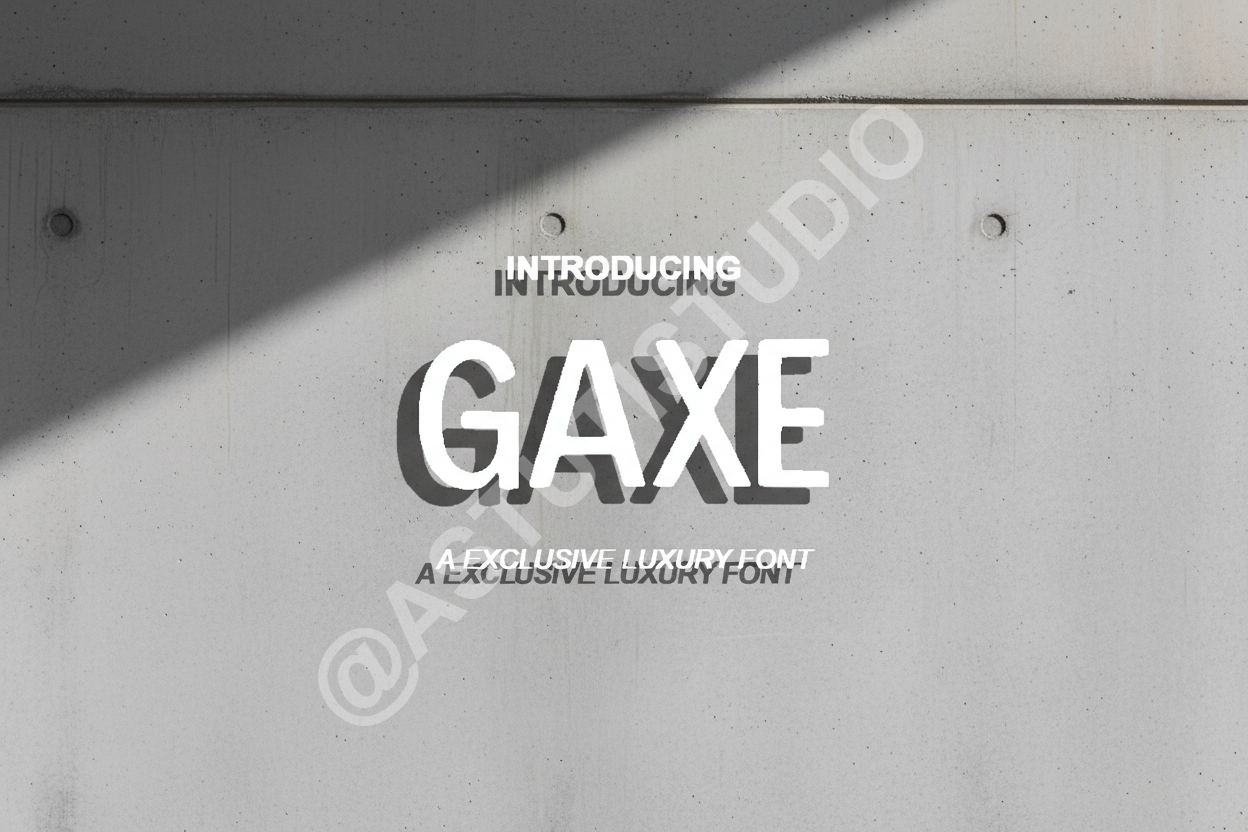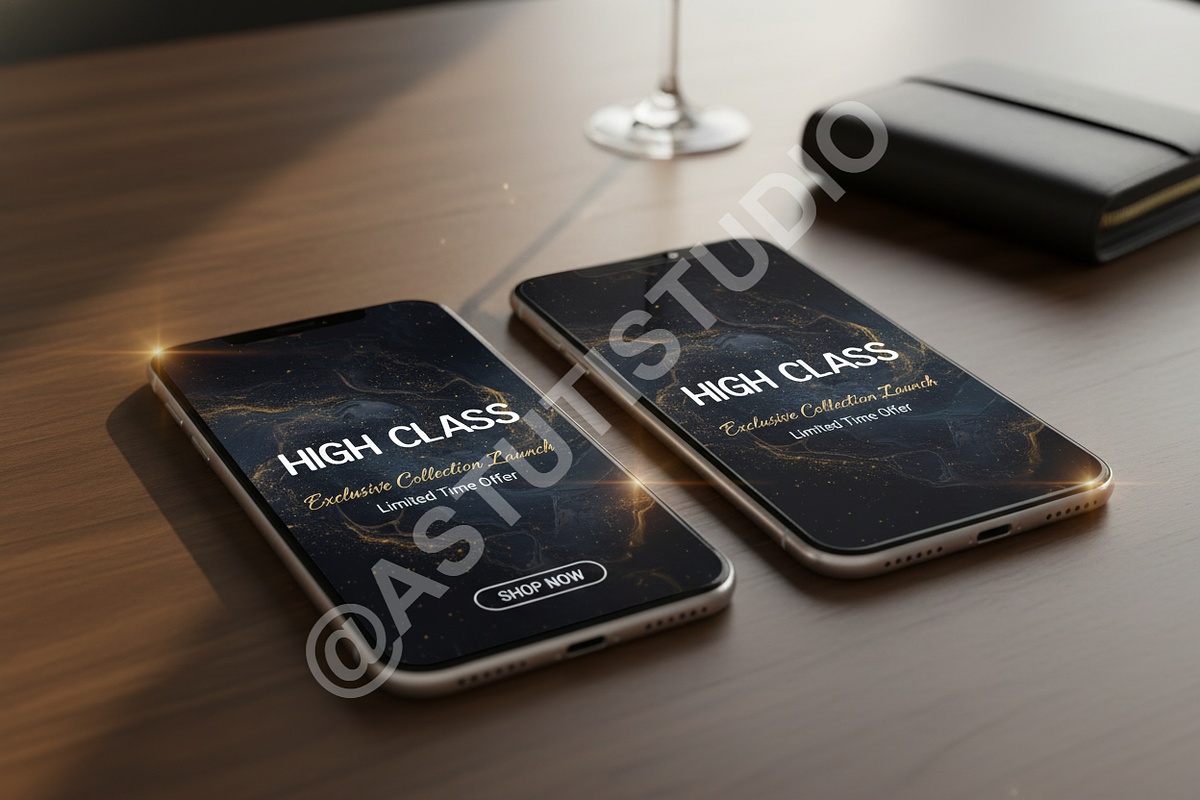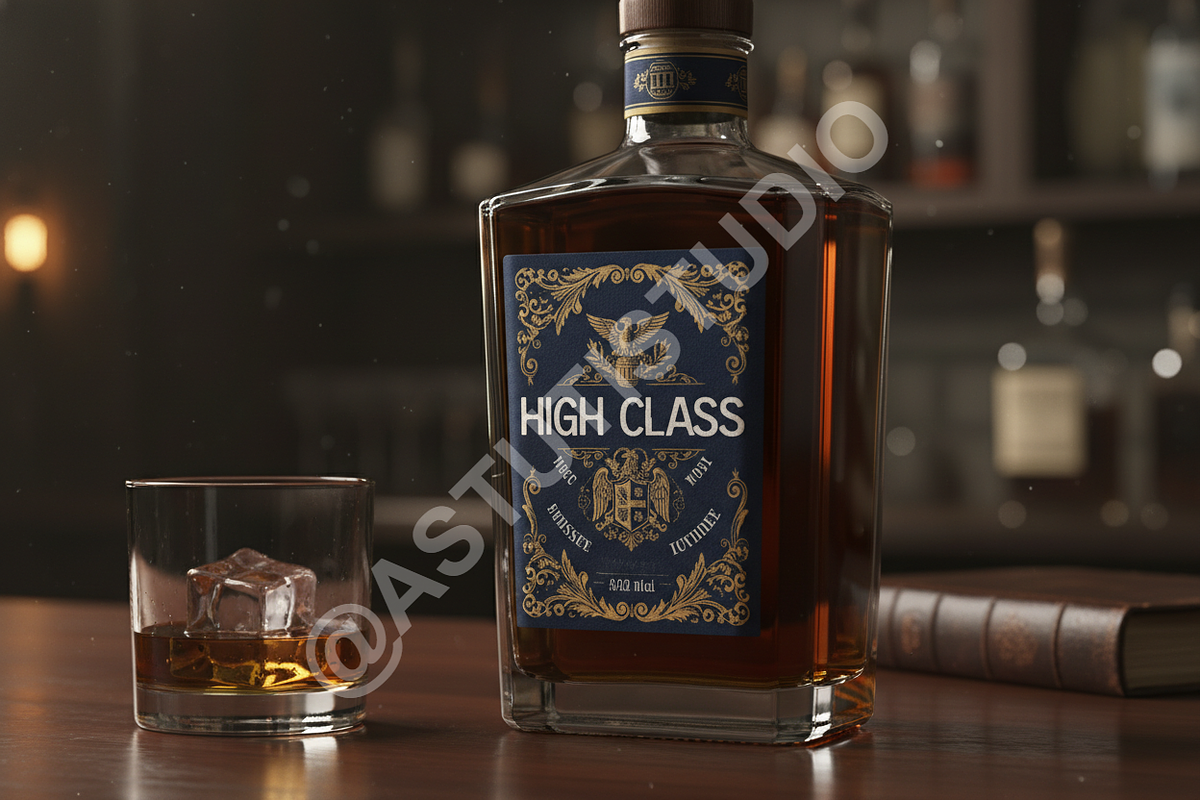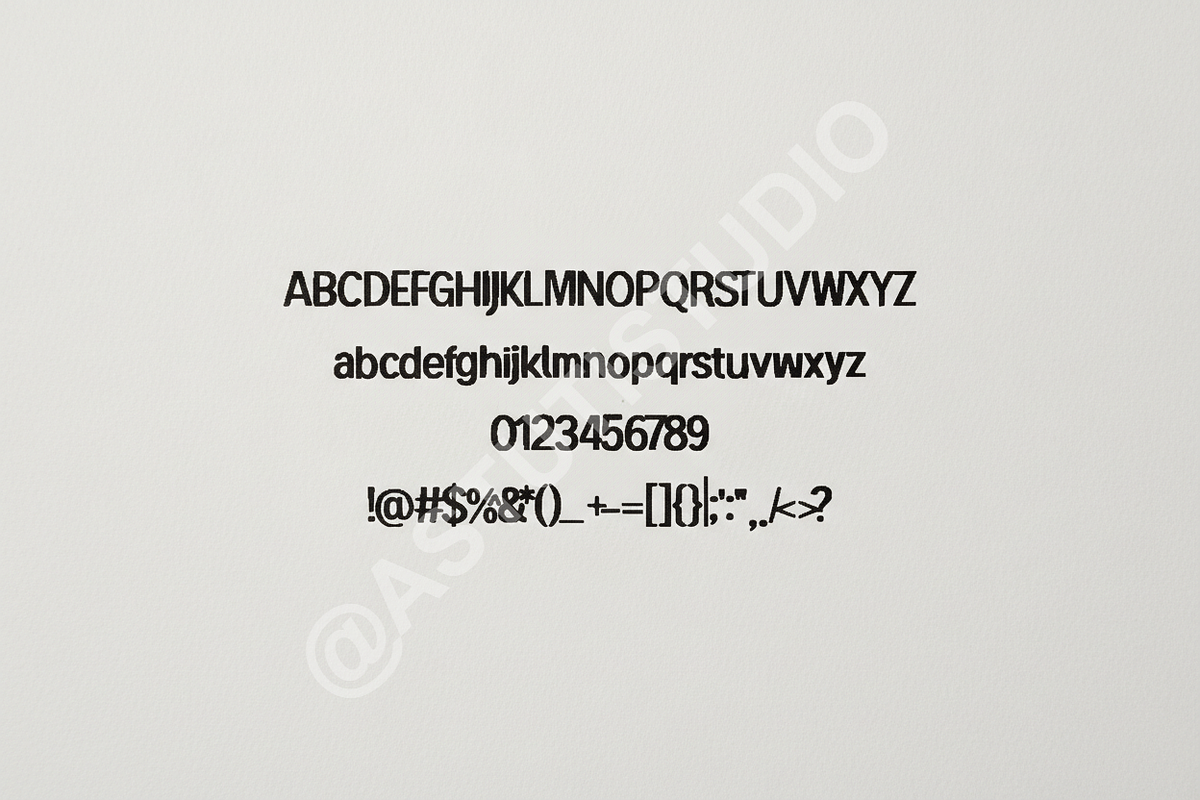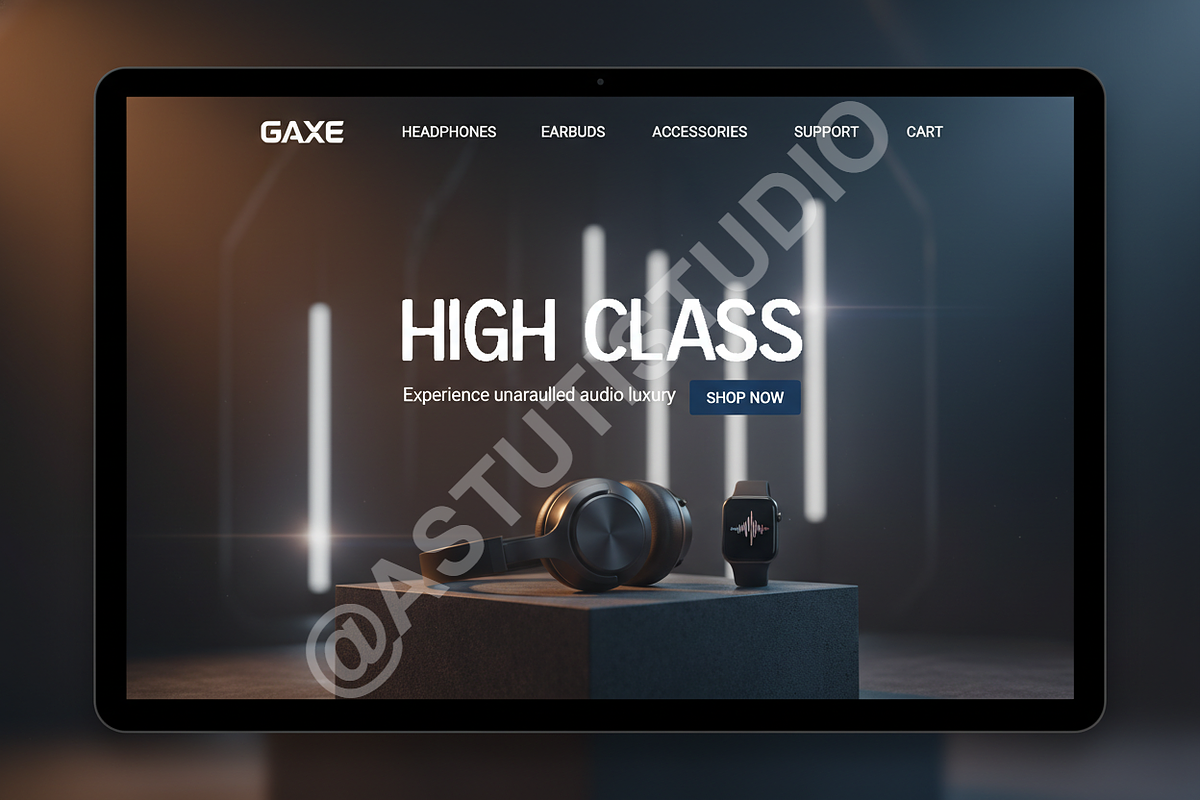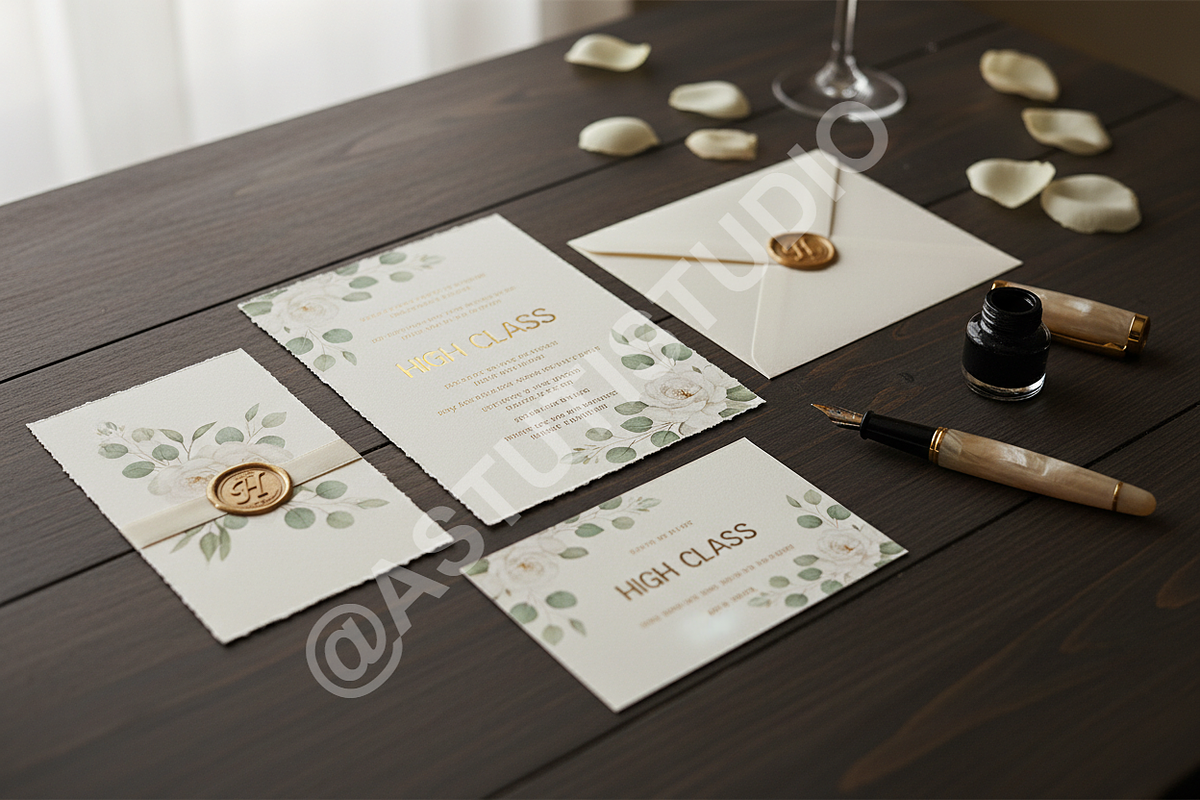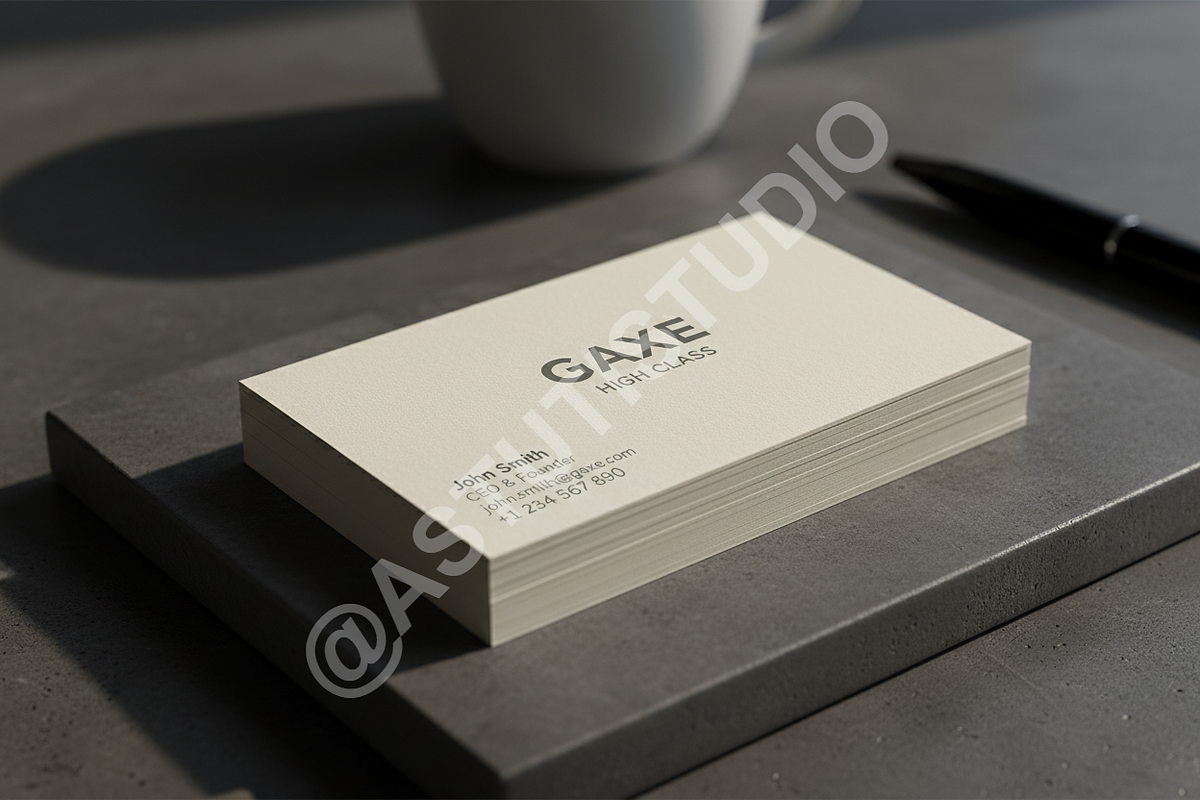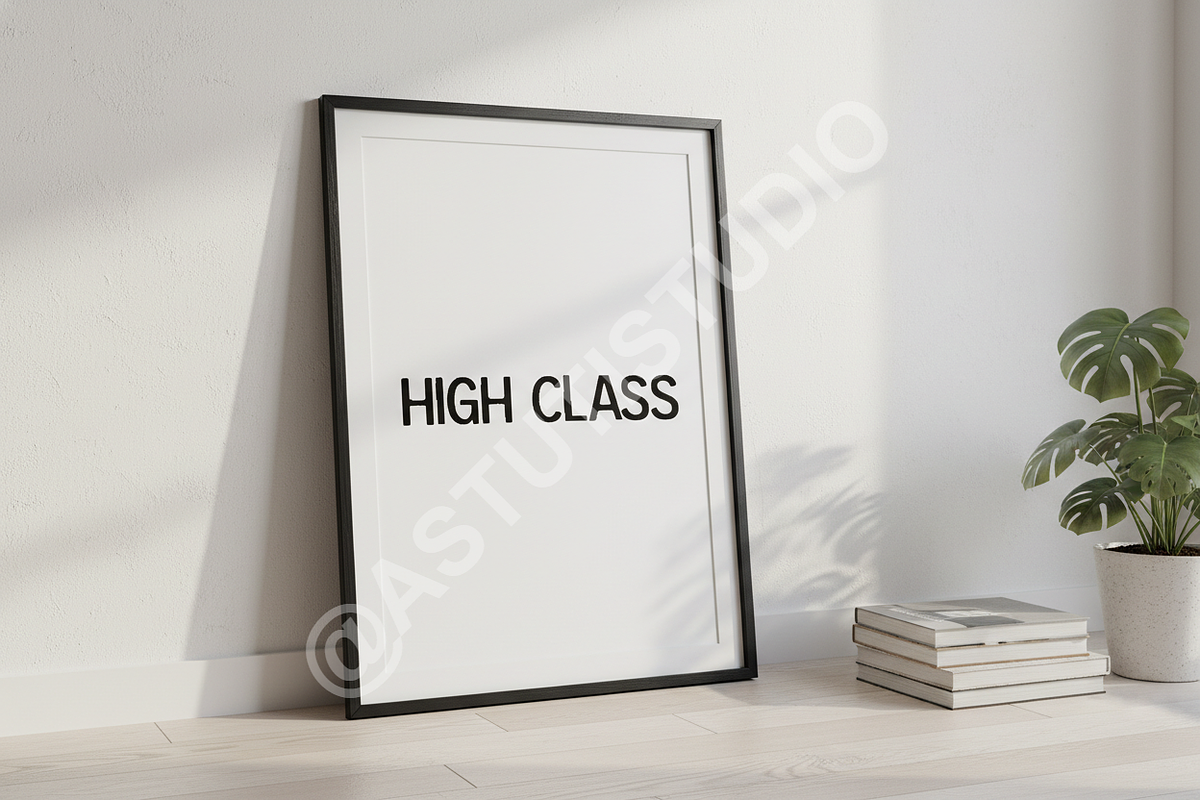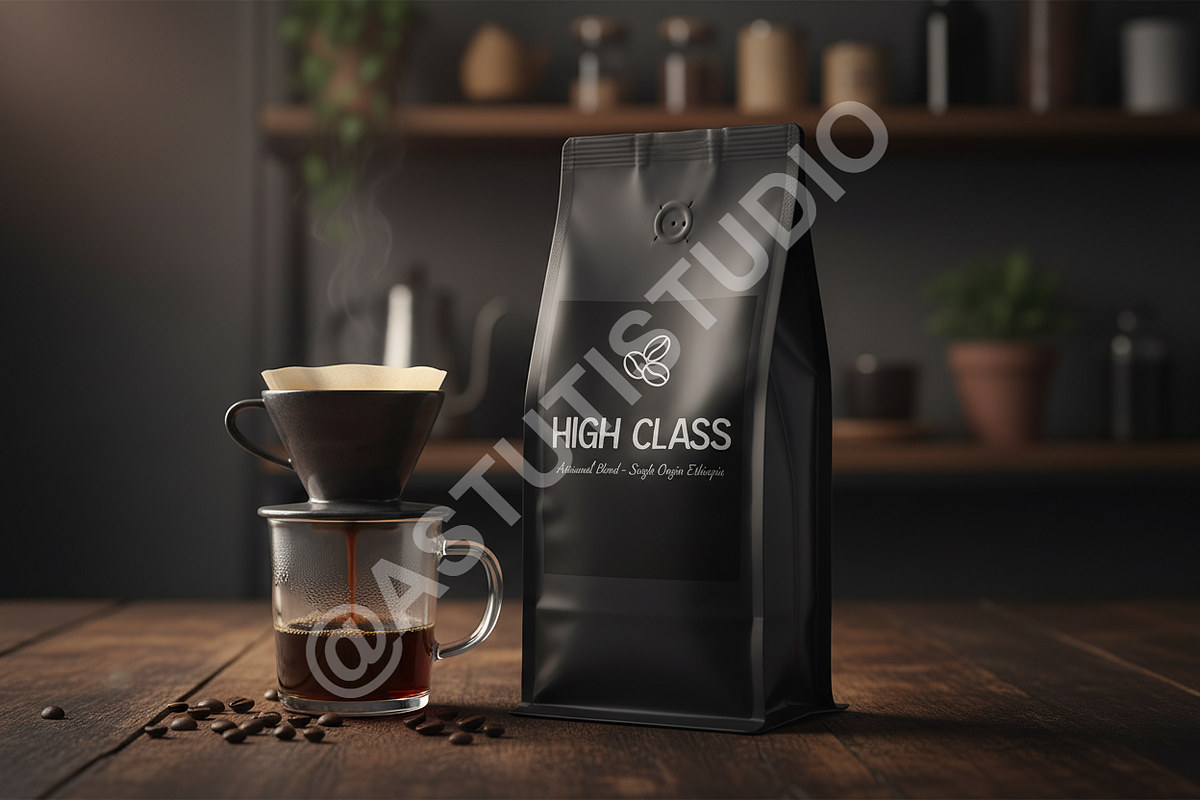
Gaxe - Elegant Modern Serif Typeface
Gaxe is a meticulously crafted modern serif typeface designed for discerning professionals who demand sophistication and clarity. It strikes a perfect balance between timeless elegance and contemporary flair, making it the definitive choice for premium visual communication.
Gaxe effortlessly elevates your projects, whether you are establishing a high-end luxury brand identity, crafting stunning editorial spreads, or creating captivating, polished social media visuals. It is built to communicate quality and exclusivity.
- Versatile Weights: Includes Thin, Regular, Medium, and Bold variations for maximum design flexibility.
- Extensive Language Support: Optimized for multi-lingual European use (Latin Extended A).
- Elegant Ligatures: Over 40 standard and discretionary ligatures to enhance flow and unique typographic moments.
- High Contrast Design: Features smooth, balanced curves and defined stems, ensuring legibility and visual impact across all sizes.
- OpenType Features: Full support for advanced glyphs, fractions, alternates, superscripts, and subscripts.